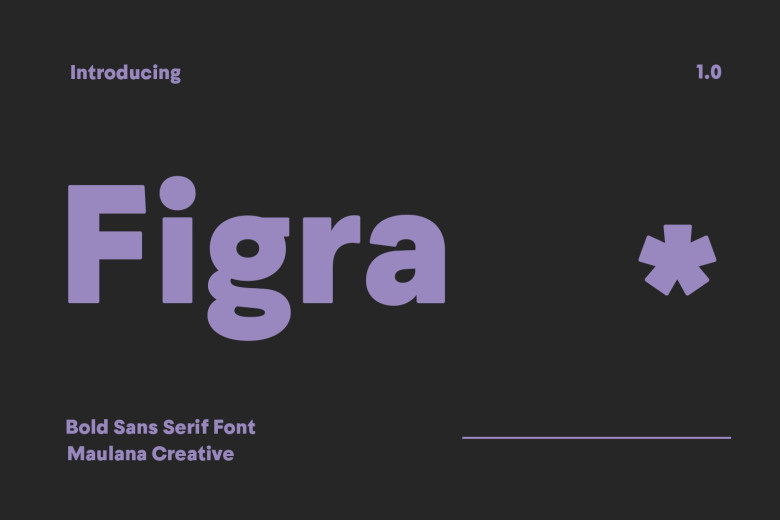
Figra Font
Figra font is an eye-catching modern sans serif font designed with modernity in mind, boasting bold letters with some lively ligatures and alternative fonts for you to do some imaginative work with. Supporting more than 100 languages,
Figra font can be used in logos, social media as well as movie titles or books titles as well as short and long texts of any length – perfect secondary text fonts with serif or script features for creating stunning artwork using this versatile font!
Figra Sans Serif Font